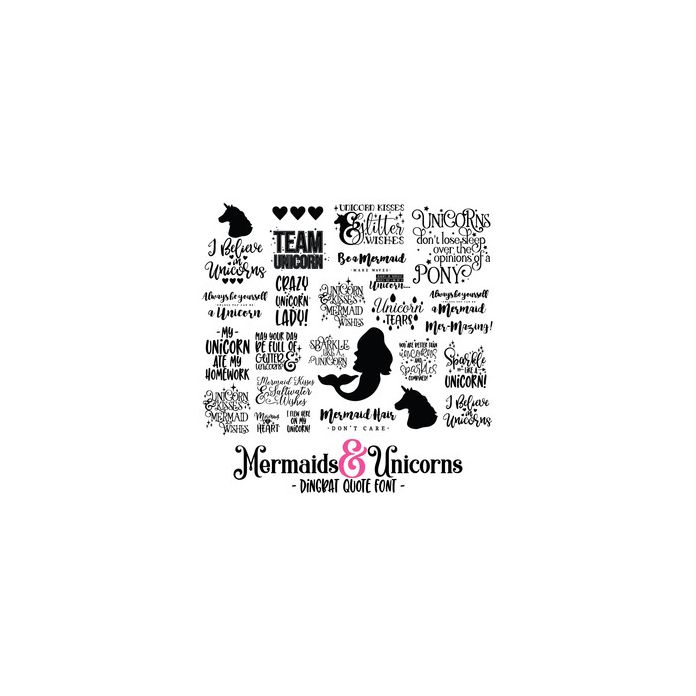
Mermaids & Unicorns Quote Dingbat Font. Includes 26 fun mermaid and unicorn quotes and accessories, perfect for planners, wall art, word art, vinyl, scrapbooking, gifts and more!. All are assigned to an upper case letter starting with 'A' or can be accessed via glyphs. For more design ideas, coordinating designs & products and inspiration, please visit my blog http://www.sarahhurleyblog.com